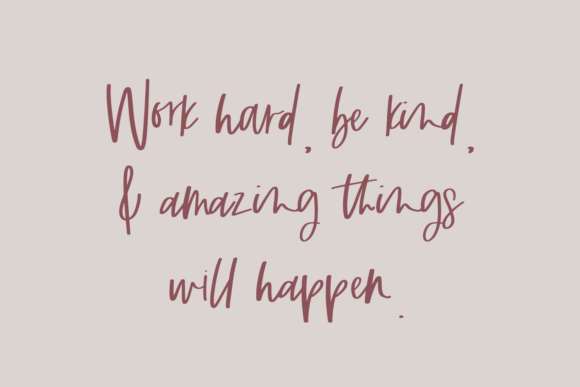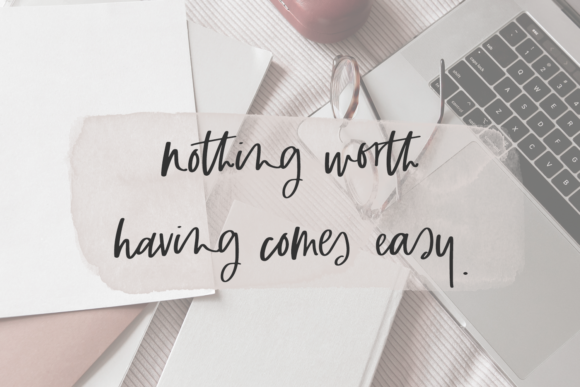
Routinely Script Font
db-ku.com - Script & Handwritten -- Routinely Script is a handwritten signature style font. This stylish font features a messy, casual look.